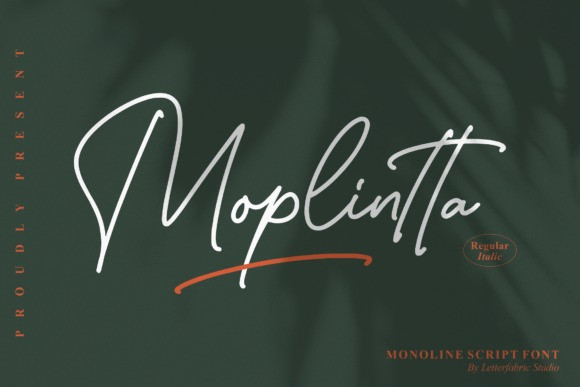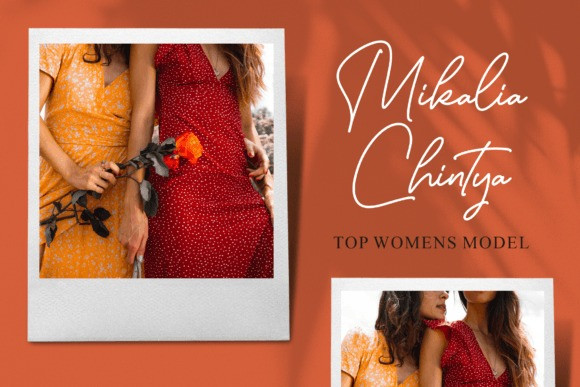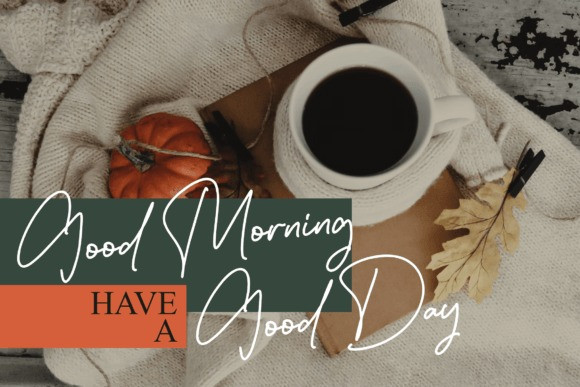
Moplintta Font
Moplintta is a dainty and elegant script font. It has a clean, thin, and smooth vibe and it will be a hit for any design that you want to add it to.